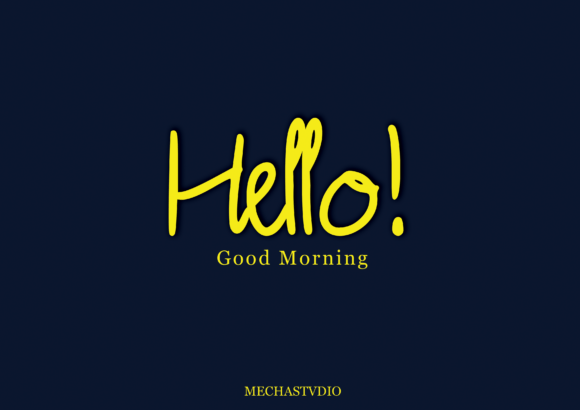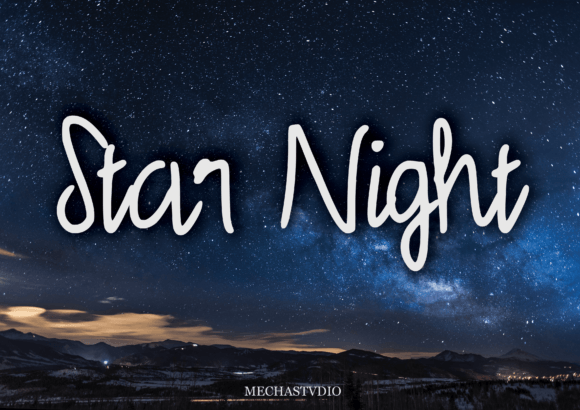
Introduction to Morgen Font
Enter the Morgen Font, a stunning and versatile script font that’s sure to add a natural sparkle to any design project. With its unique feel and effortless charm, Morgen Font is the perfect design resource for creative projects that demand a touch of sophistication and elegance. Whether you’re working on a logo, a brochure, or a website, Morgen Font is the perfect addition to your design toolkit, and it’s available for free download, making it a valuable asset for designers of all levels.
Key Features of Morgen Font
- High-quality, professional design suitable for creative projects and commercial use.
- Perfect design resource for branding, marketing materials, and digital content creation, thanks to its clean and modern aesthetic.
Honest Review: Morgen Font
As a designer, I’m always on the lookout for high-quality fonts that can elevate my creative projects. Recently, I stumbled upon the Morgen Font, and I’m excited to share my honest review with you.
One of the standout features of the Morgen Font is its beautiful, elegant design. The font is perfect for creating a sophisticated and refined look in any design project. I particularly love the way the font works well with transparent backgrounds, allowing the text to take center stage.
- ✨ Beautiful, elegant design that works well with transparent backgrounds
- ✨ Highly versatile, suitable for a wide range of creative projects
- ⚠️ Limited font sizes and styles, which may not be suitable for complex or detailed designs
- ⚠️ May not work well with very small text sizes or bold font weights
Overall, I’m impressed with the Morgen Font, and I think it’s a great addition to any designer’s toolkit. While it may have some limitations, its high quality and free download make it a fantastic design resource for any creative project.
The Morgen Font is a versatile design resource that can be used in a variety of creative projects, including logos, business cards, and marketing materials. Its unique style and transparent background make it an ideal choice for designers looking to create high-quality, eye-catching designs.